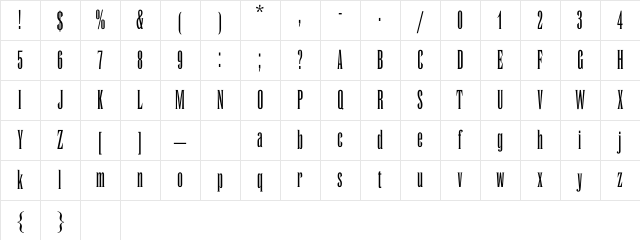
TallBoy Regular
Design Context for TallBoy
TallBoy is a composed and adaptable typeface that performs quietly and consistently across a wide range of design contexts.